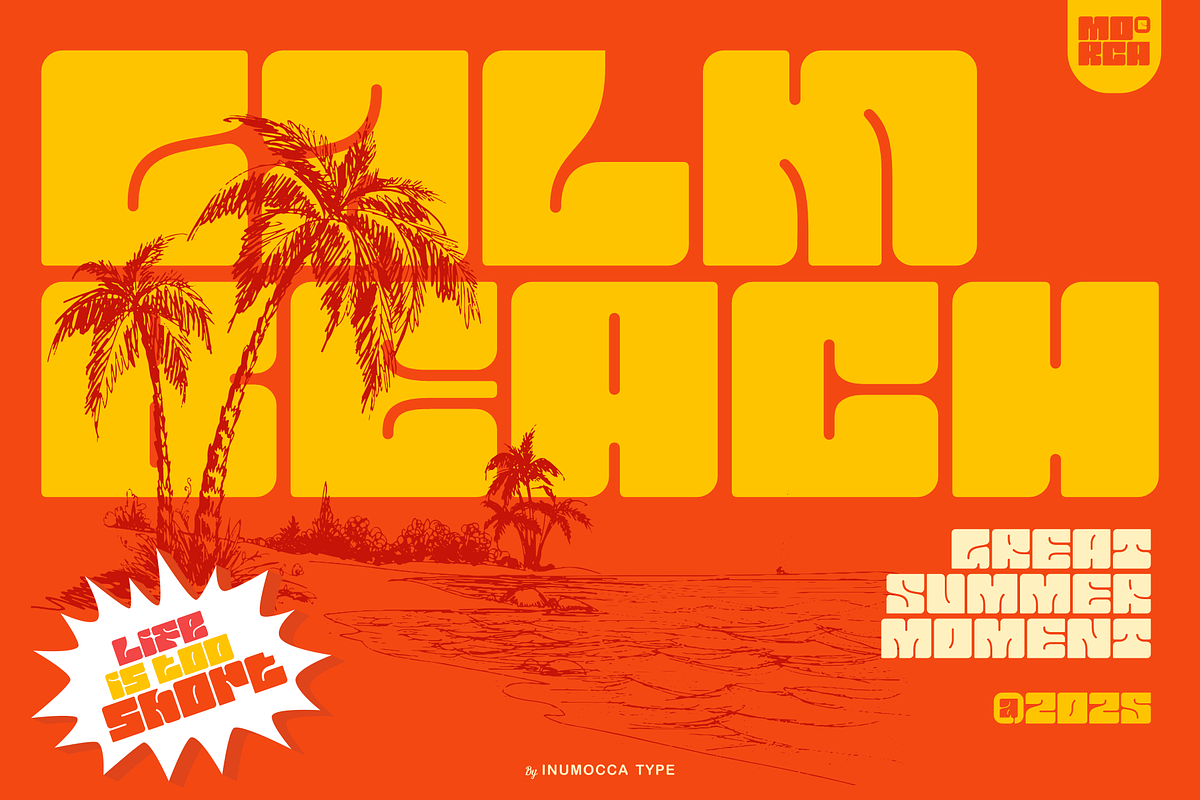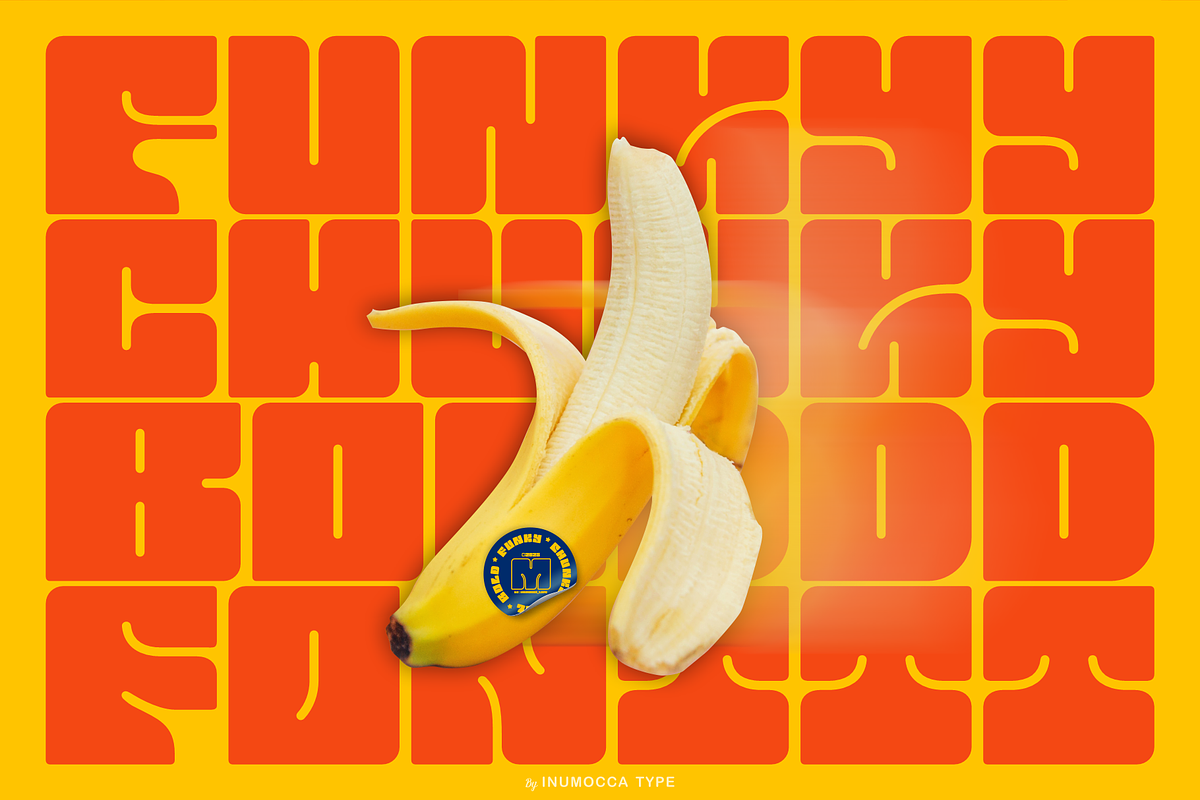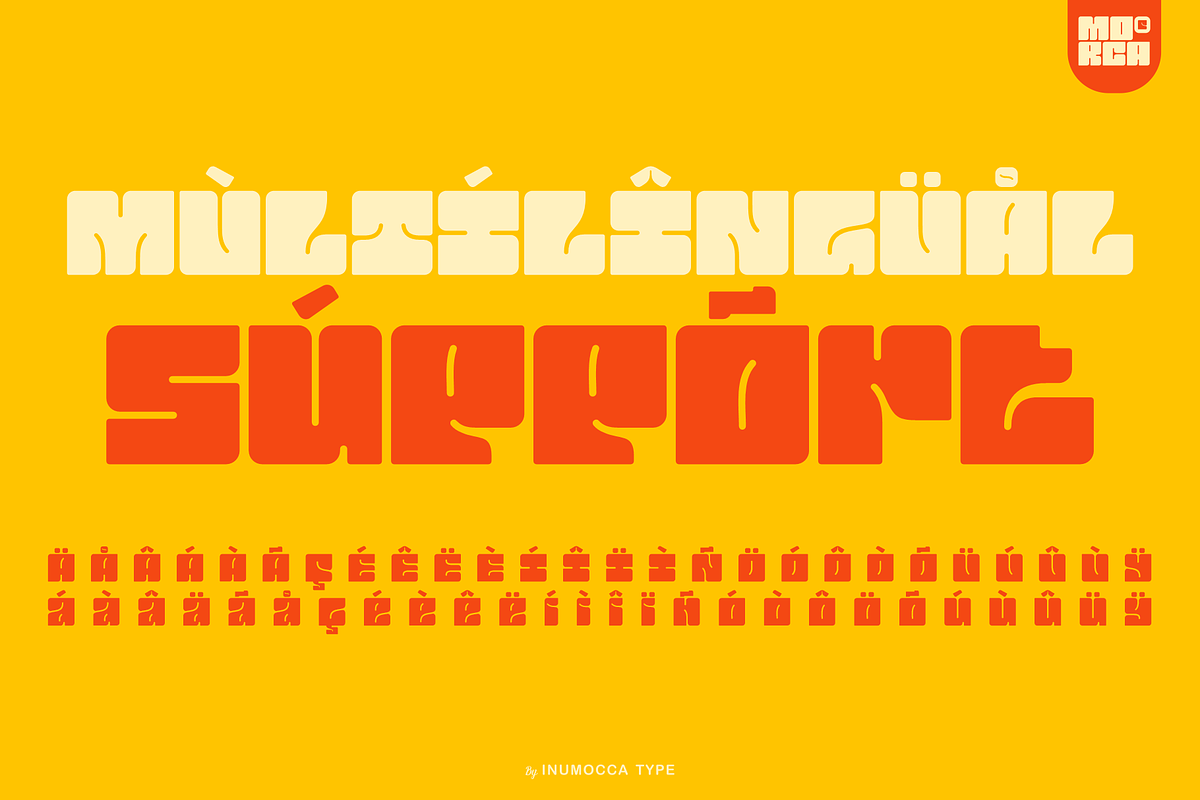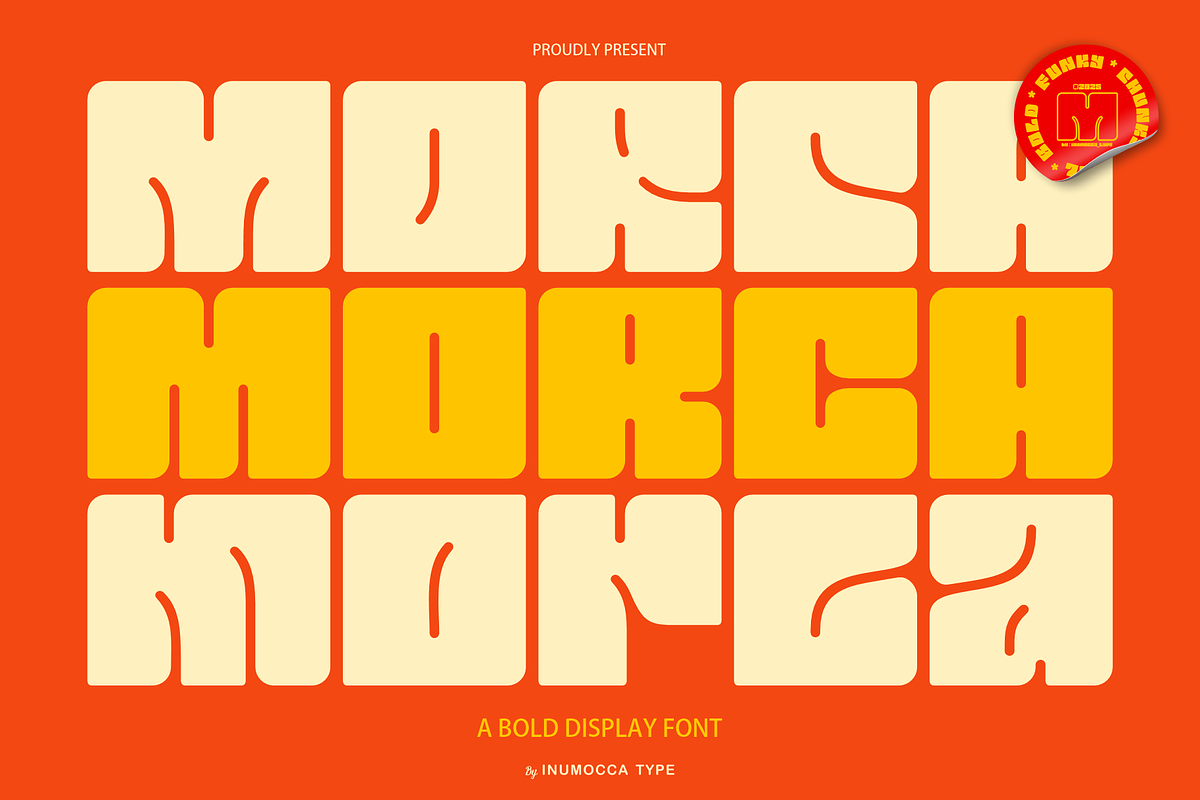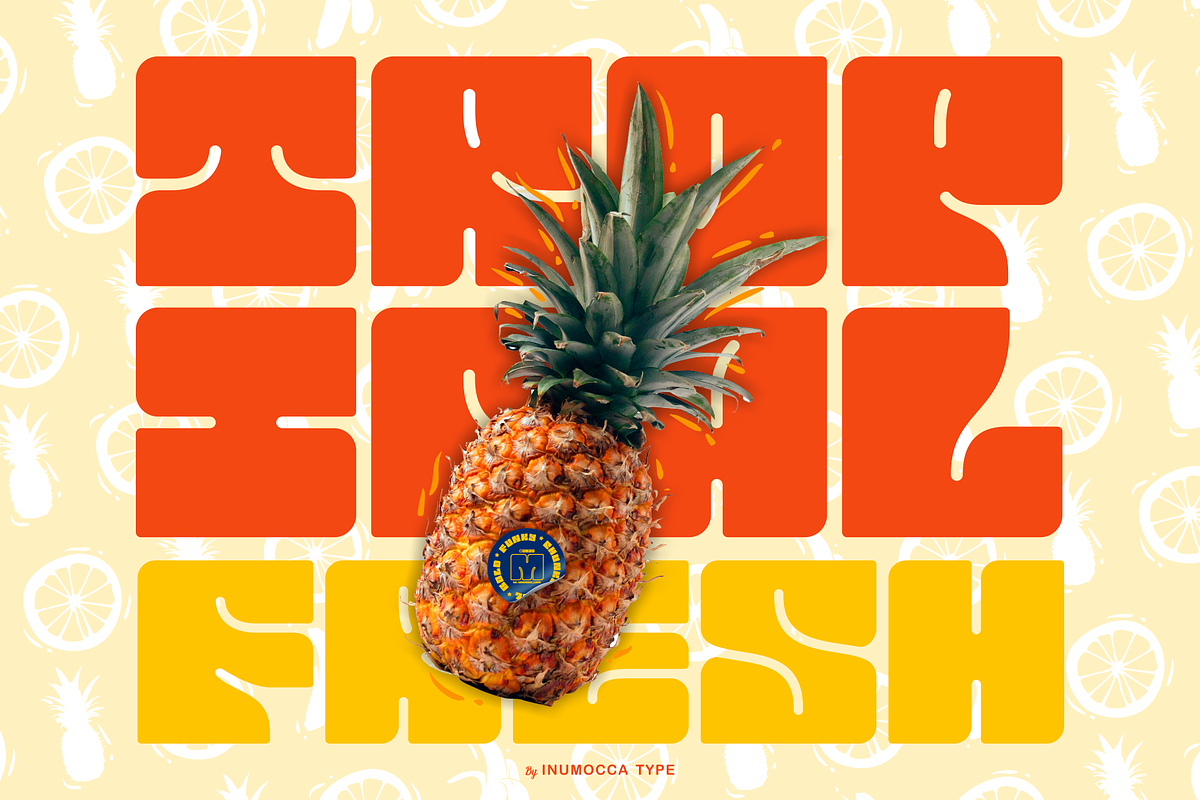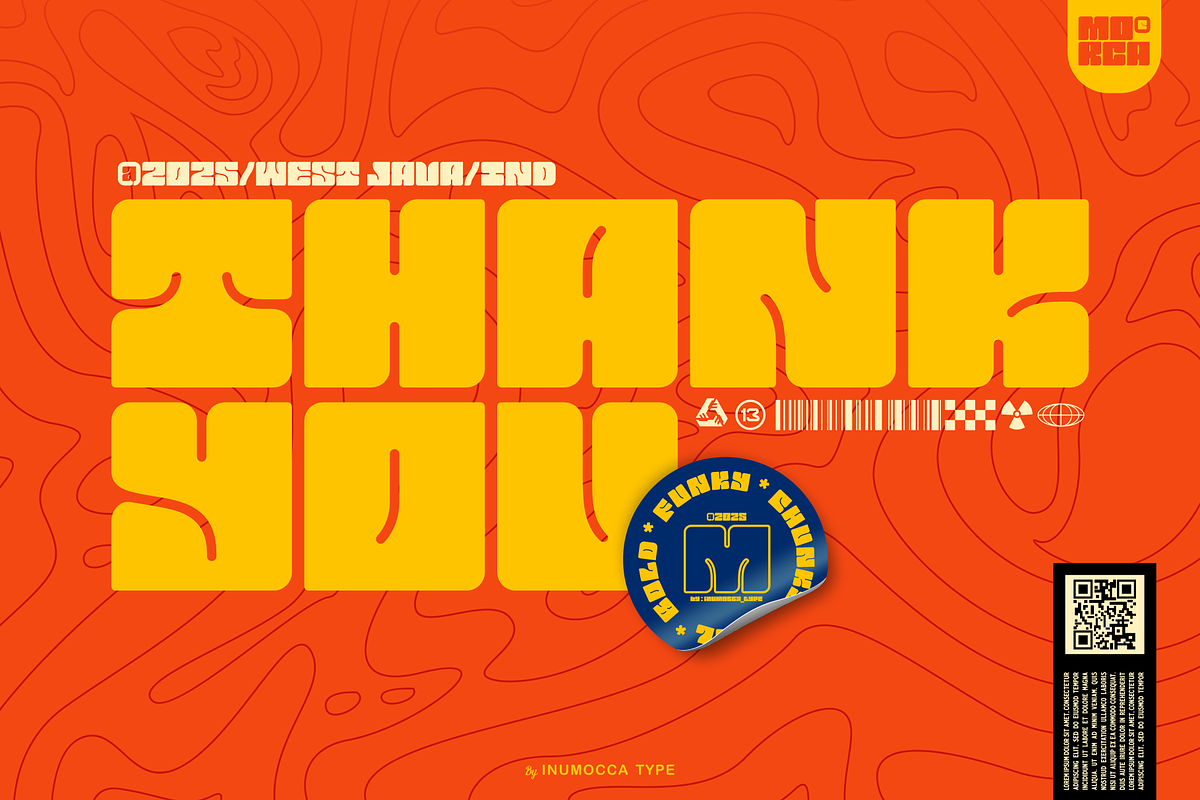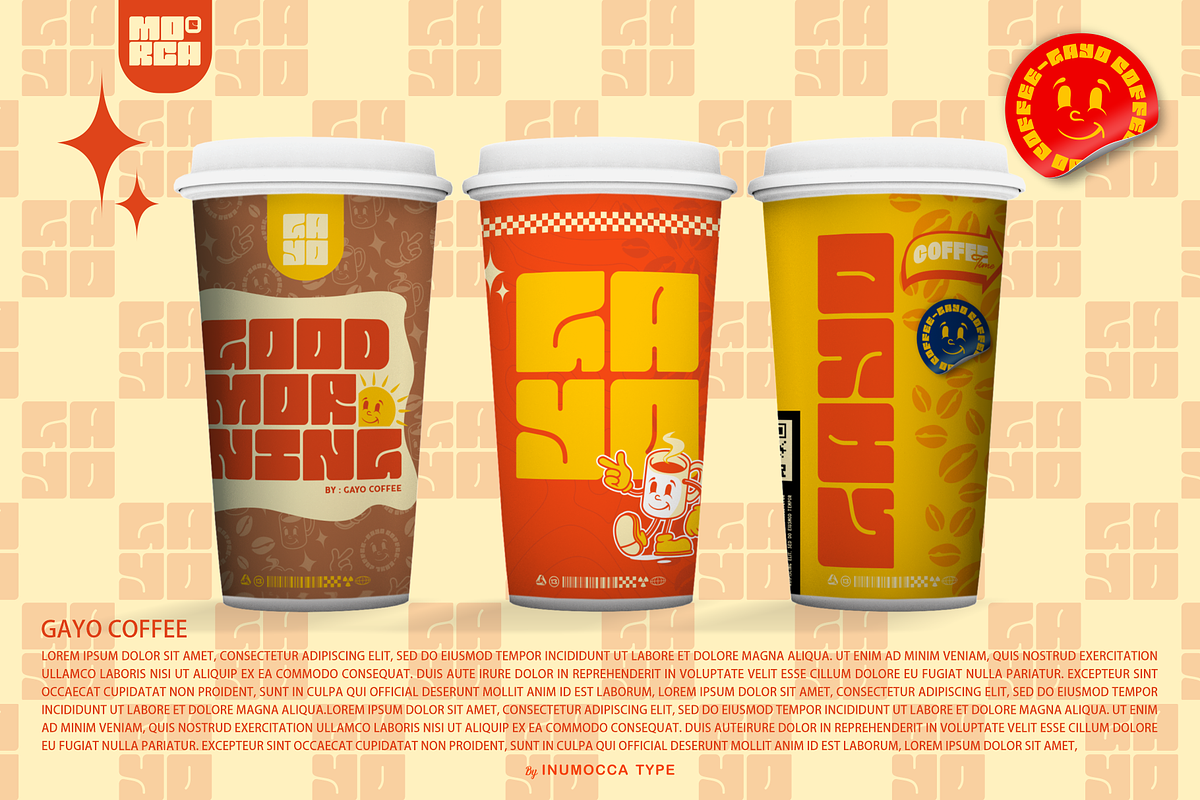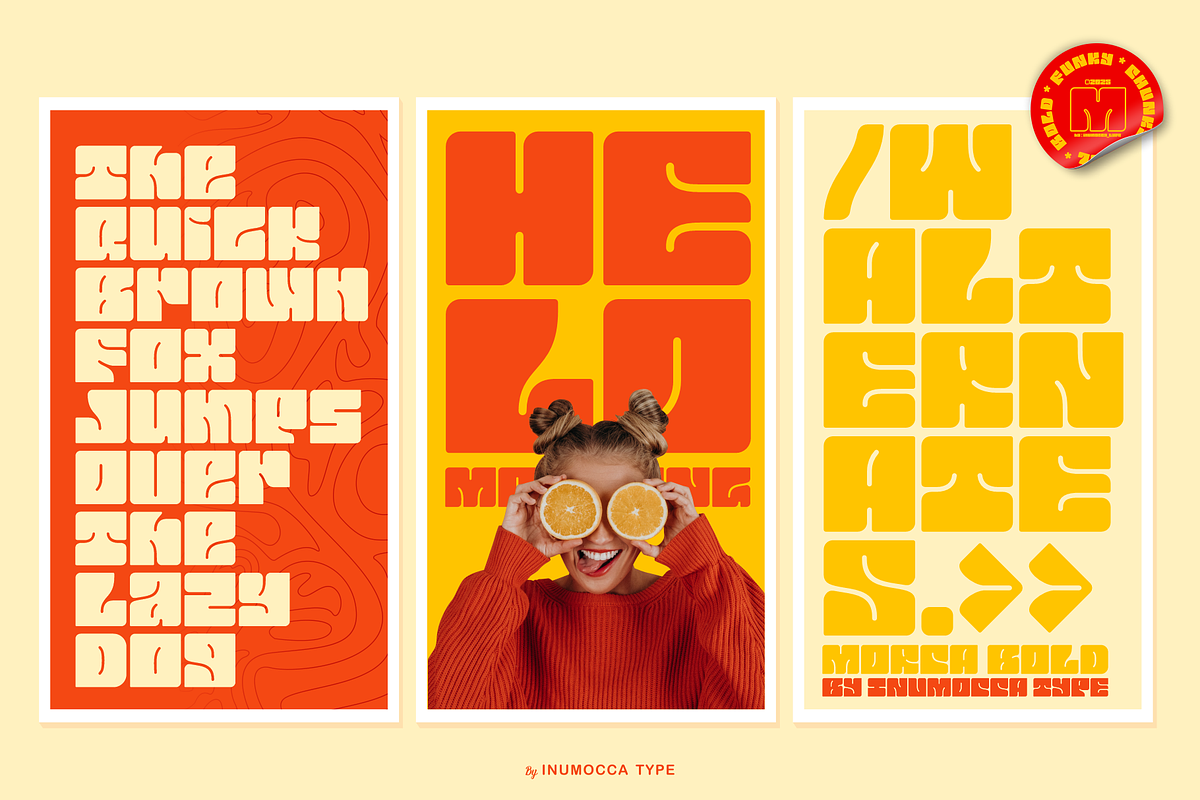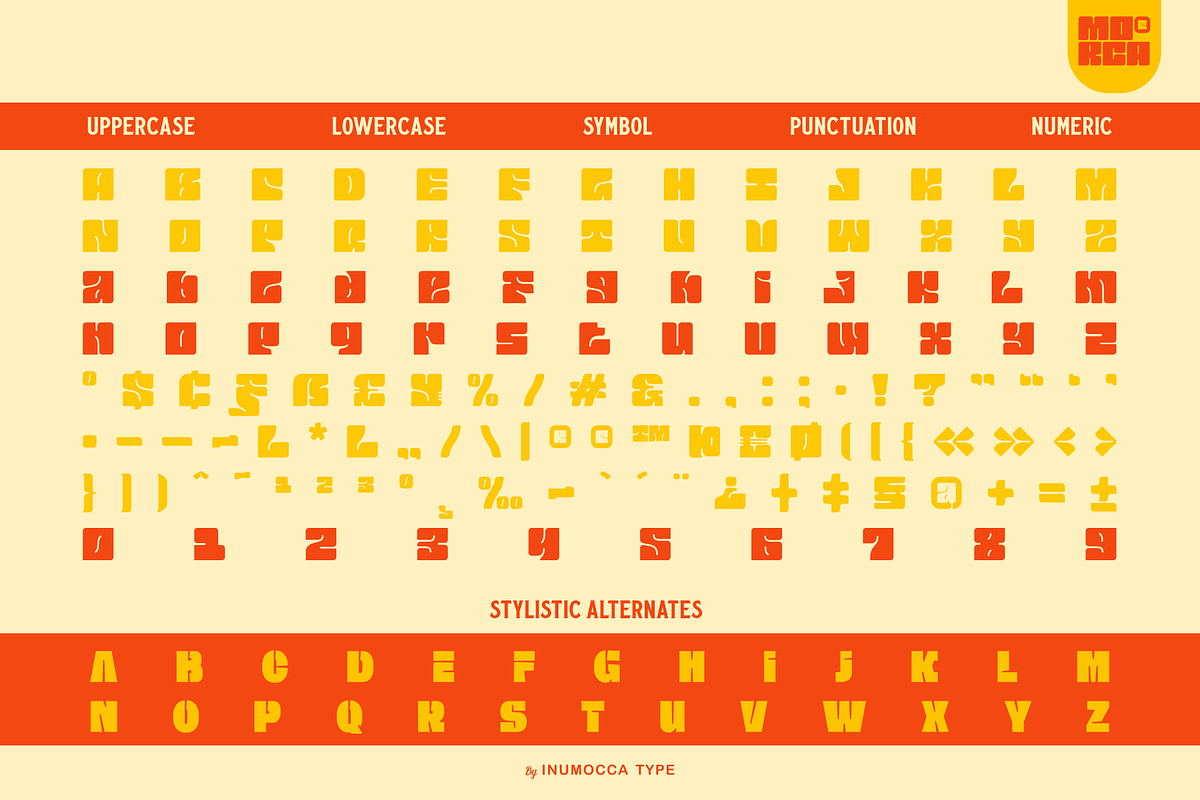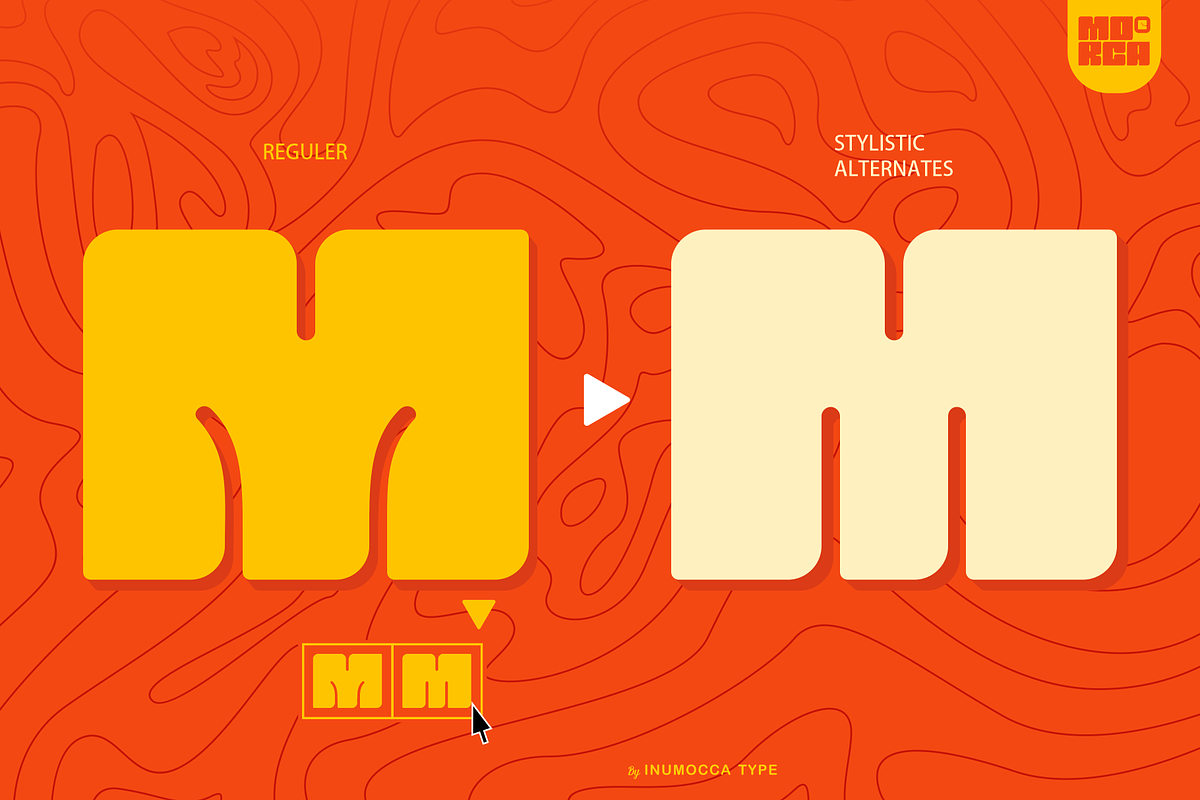
Morca
Morca is A Bold Display Font, Extra Bold square, dynamic, Funky, Chunky and Cool font Realy playful and Bold with soft corner.its perpect for an image fill effect while still being legible. Great for covering your Project, like Lettering, Website Interface, Magazine, Branding, Poster, wedding invitations, Quotes Lettering, Logos, and more your project design.
- Unique glyphs
- Multilingual Characters
- UPPERCASE
- Numeric
- Symbol
- Punctuation Character
- Stylistic Alternates (ss01)